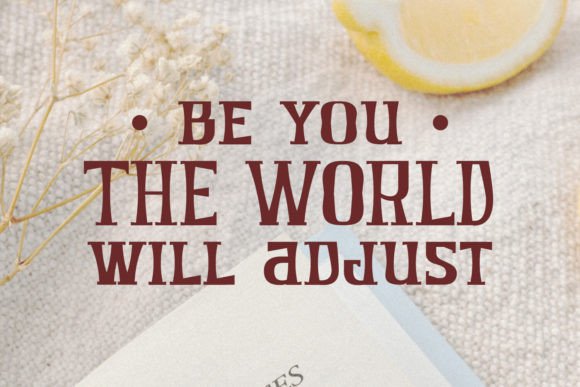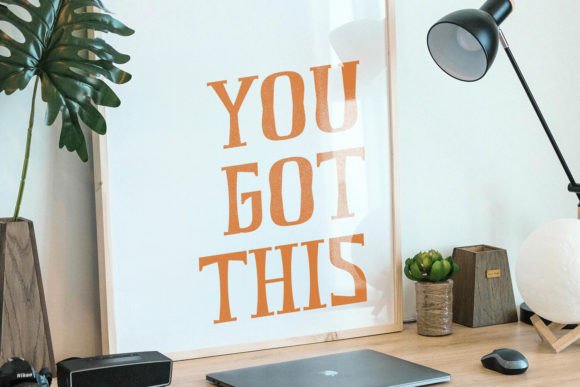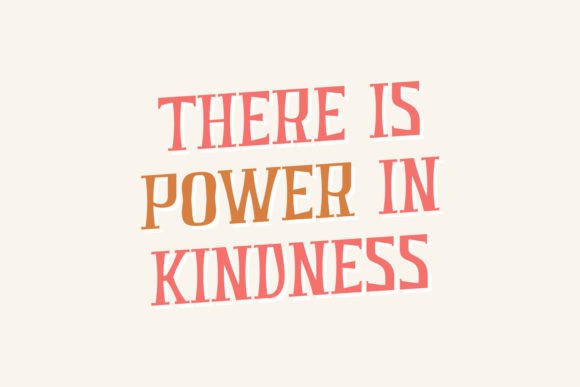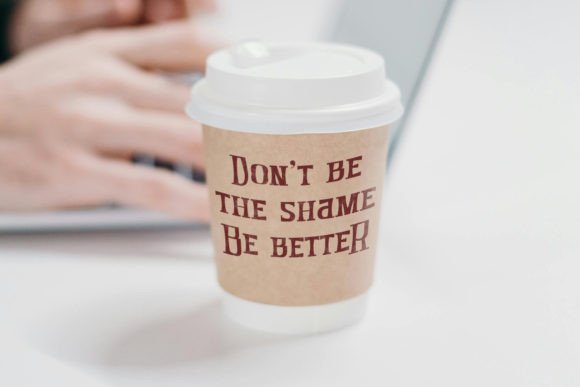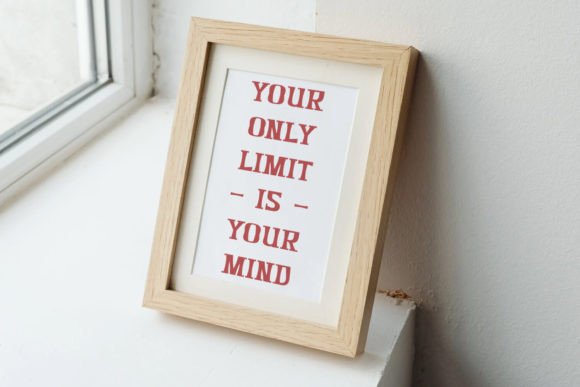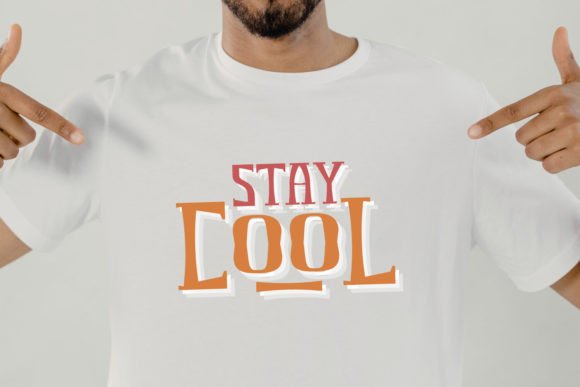
Unlock the Magic of Friday Potion Font
There’s something magical about Friday afternoons, when the workweek’s almost over and the weekend’s just around the corner. It’s a time when creativity flows freely, and ideas start to brew like a potent potion. For designers, it’s the perfect moment to experiment with new fonts, styles, and techniques. And that’s exactly where Friday Potion Font comes in – a captivating serif display font that’s about to become your new go-to for adding a touch of elegance and edginess to your designs.
With its unique blend of structure and unpredictability, Friday Potion Font is the perfect tool for designers looking to add a bit of magic to their work. Whether you’re creating a logo, a poster, or a social media campaign, this font is sure to command attention and leave a lasting impression.
Friday Potion Font Key Features
- Unique Characteristics: Hand-drawn, whimsical design with a touch of magic and fantasy elements
- Language Support: Multi-language support, including Latin, Cyrillic, and Greek alphabets
- Style Variations: 6 font styles, including Regular, Italic, Bold, Bold Italic, Script, and Outline
Friday Potion Font Review
I was excited to dive into the Friday Potion Font, and overall, I found it to be a solid addition to any designer’s toolkit. ✨ One of the standout features is its unique blend of modern and vintage elements, making it perfect for projects that require a touch of nostalgia. ✨ The font also excels at conveying a sense of energy and playfulness, making it an excellent choice for branding and marketing materials.
- Great for creative projects: The Friday Potion Font is perfect for designers looking to add a touch of whimsy to their projects.
- Versatile: The font works well for a wide range of applications, from logos and typography to packaging and advertising.
However, I did encounter a few limitations. ⚠️ The font may not be the best choice for projects that require a more serious or professional tone. Additionally, the font’s unique design elements can sometimes make it difficult to read, particularly at smaller font sizes.
Overall, I’d give the Friday Potion Font a solid 4 out of 5 stars. It’s a great choice for designers who want to add some personality and flair to their projects. With a bit of caution and consideration, this font can be a valuable addition to any designer’s toolkit.
The ‘Friday Potion Font’ is ideal for:
- Creative projects, such as illustrations and graphics.
- Branding and marketing materials, such as logos and business cards.
- Personal projects, such as scrapbooking and journaling.
What is the recommended font size for using Friday Potion Font in body text?
For optimal readability, we recommend using the Friday Potion Font at a minimum size of 12 points in body text. However, this can vary depending on the specific design application, screen resolution, and personal preference. Feel free to experiment with different font sizes to find the perfect balance for your project.